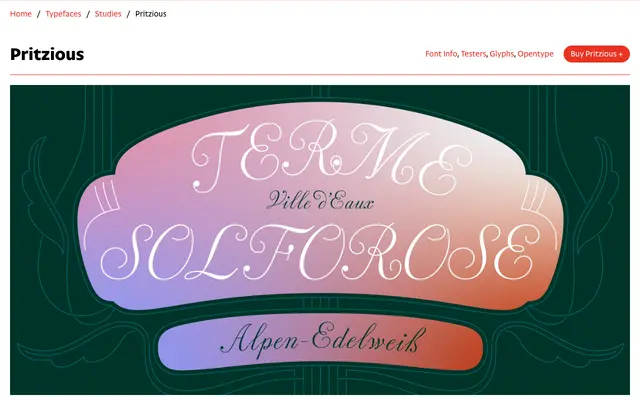
Pritzious
CAST · Valentina Casali · 2022
Pritzious specimen from CAST
A high-contrast unjoined script by Valentina Casali, rooted in the 18th-century Caractère de Finance tradition of Rosart and Fleischman.
Drawing on two specific historical sources, Fleischman's 1756 Dubbelde Descendiaan Geschreven Schrift and Rosart's c.1760 Double Descendiaan, Casali synthesised a style rather than reviving a single typeface. Lowercase letters remain deliberately unjoined, turning a metal-type limitation into a defining characteristic, while the capitals carry Barbedor's signature thin-stemmed duty line also adopted by Bodoni. OpenType contextual alternates, historical forms and swash variants allow the typeface to behave dynamically in branding, packaging and display settings.
An unjoined formal script rooted in 18th-century Caractère de Finance types by Rosart and Fleischman, with high contrast and calligraphic capitals derived from Barbedor's copper-plate tradition.